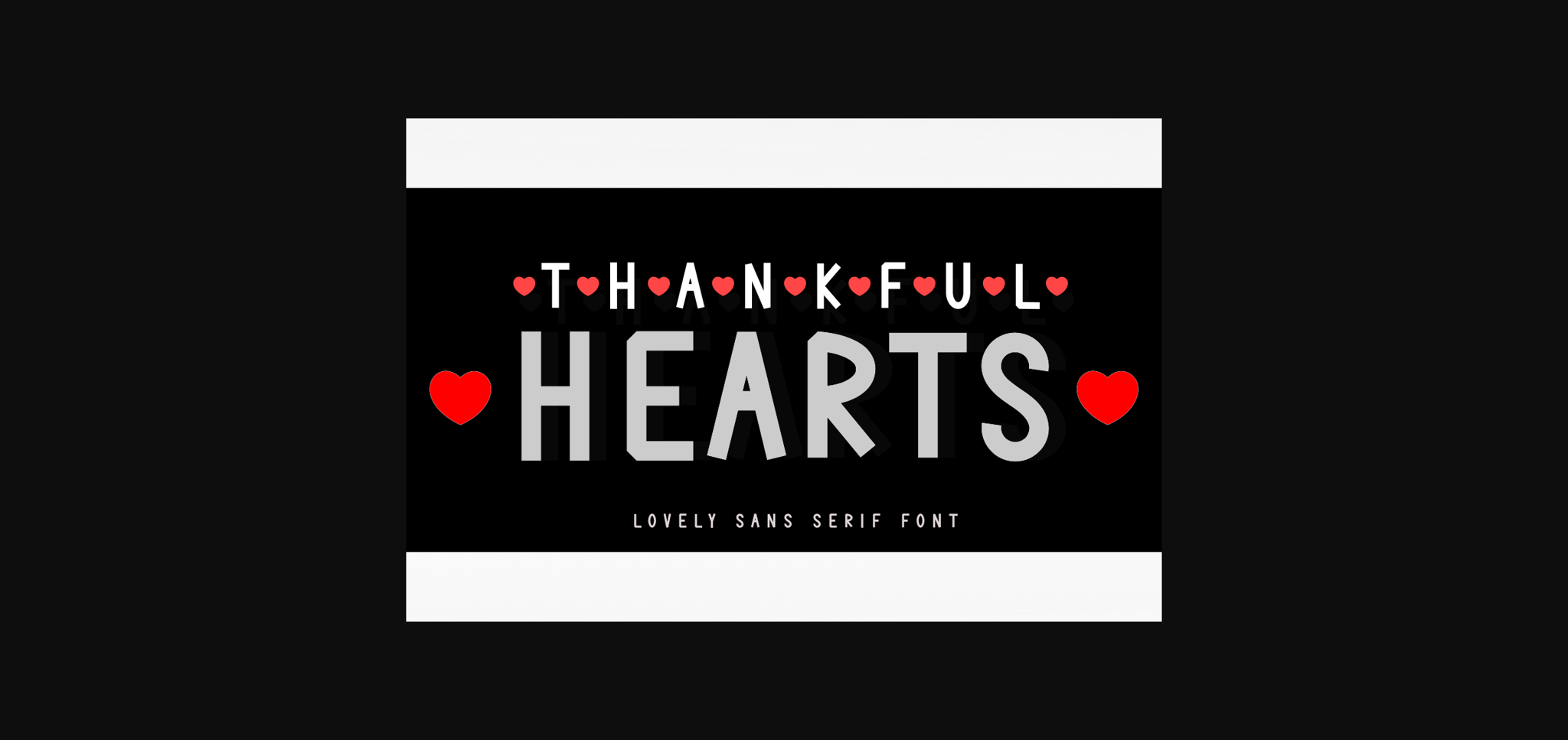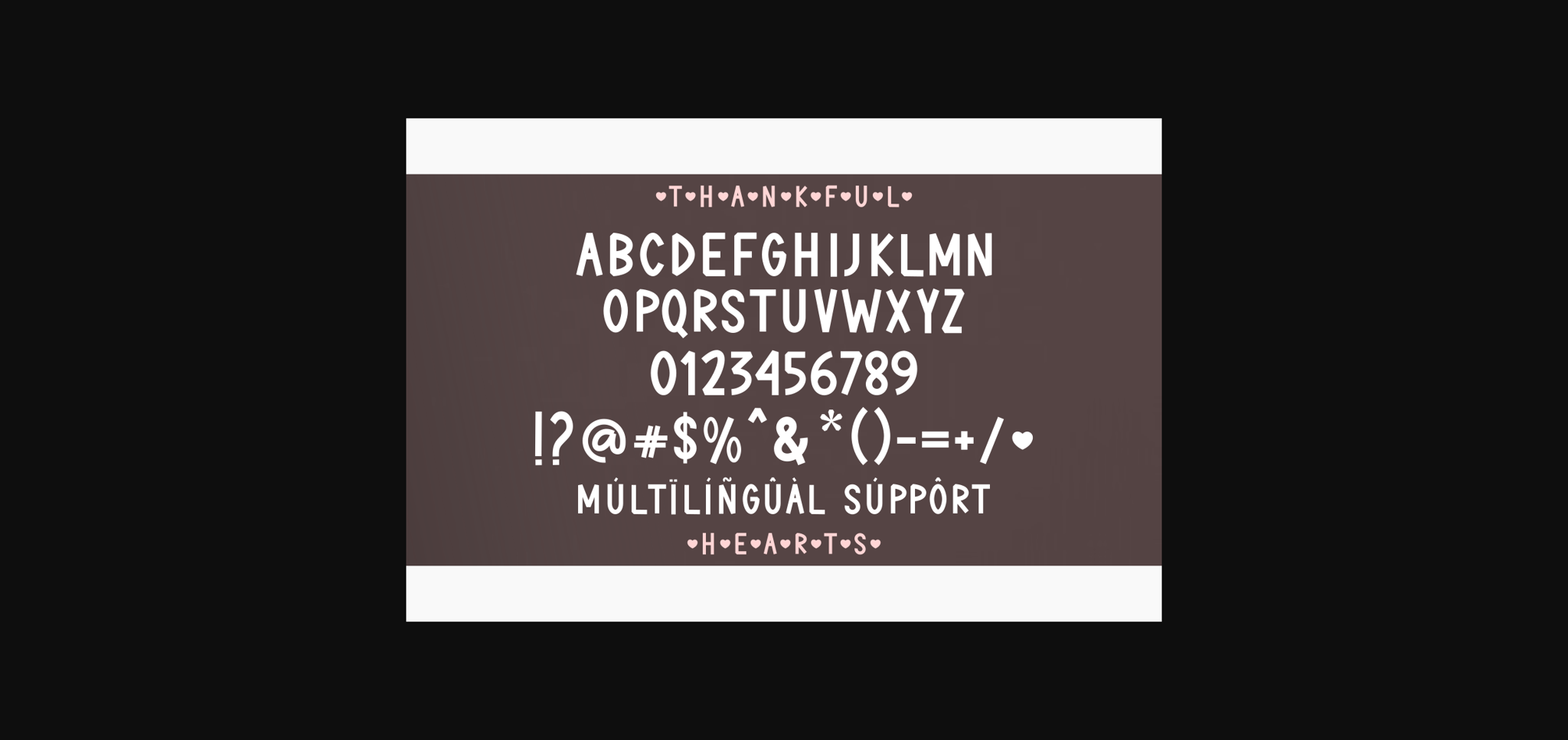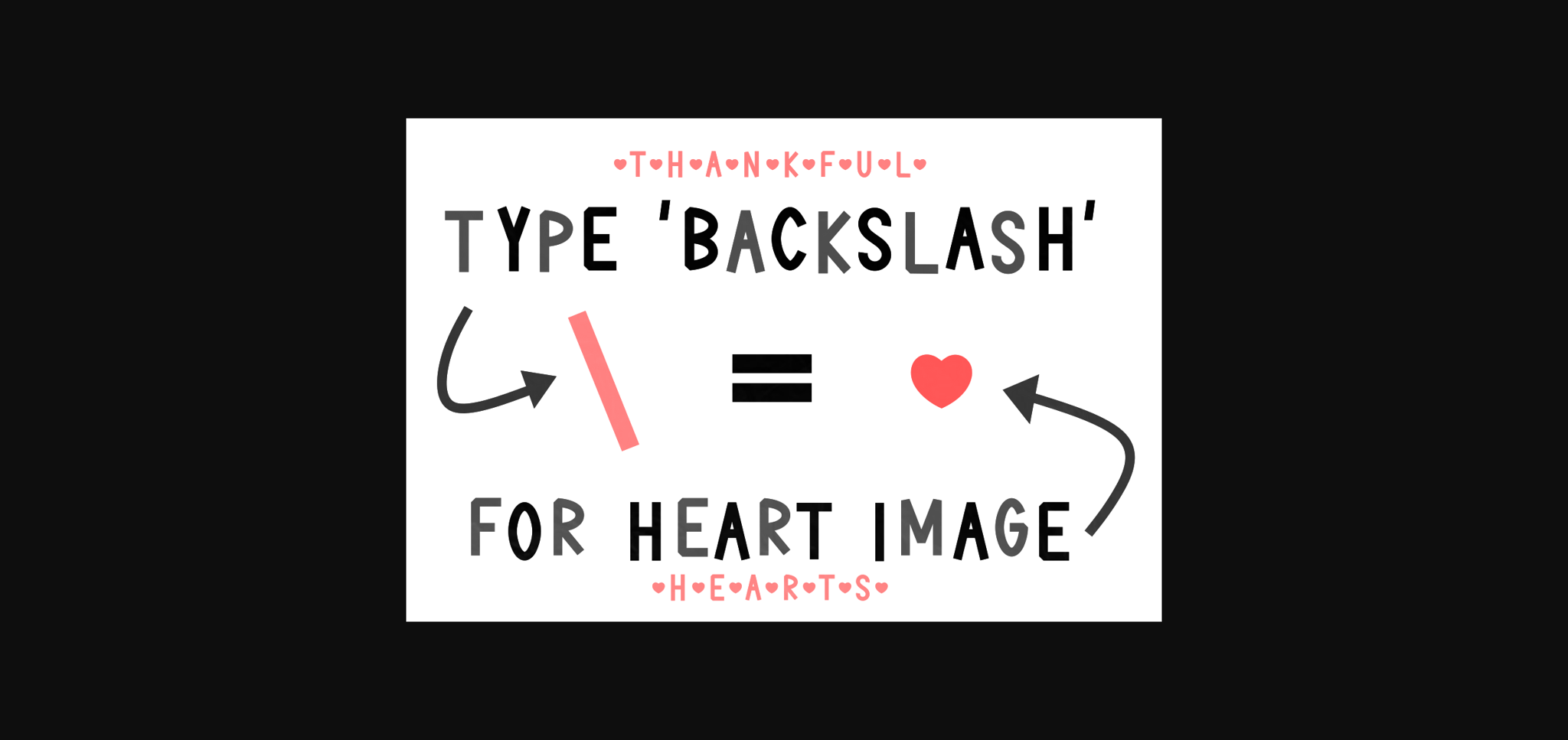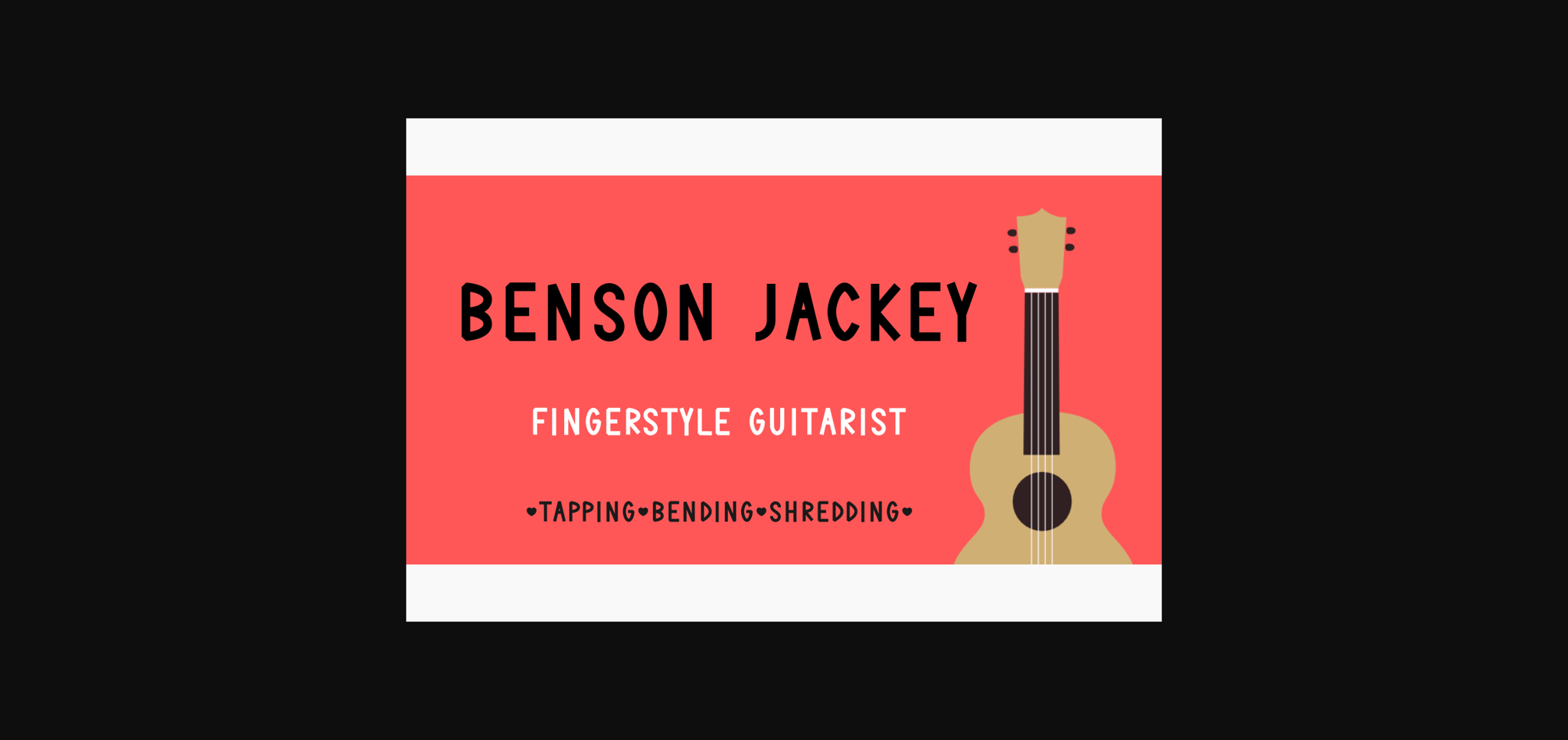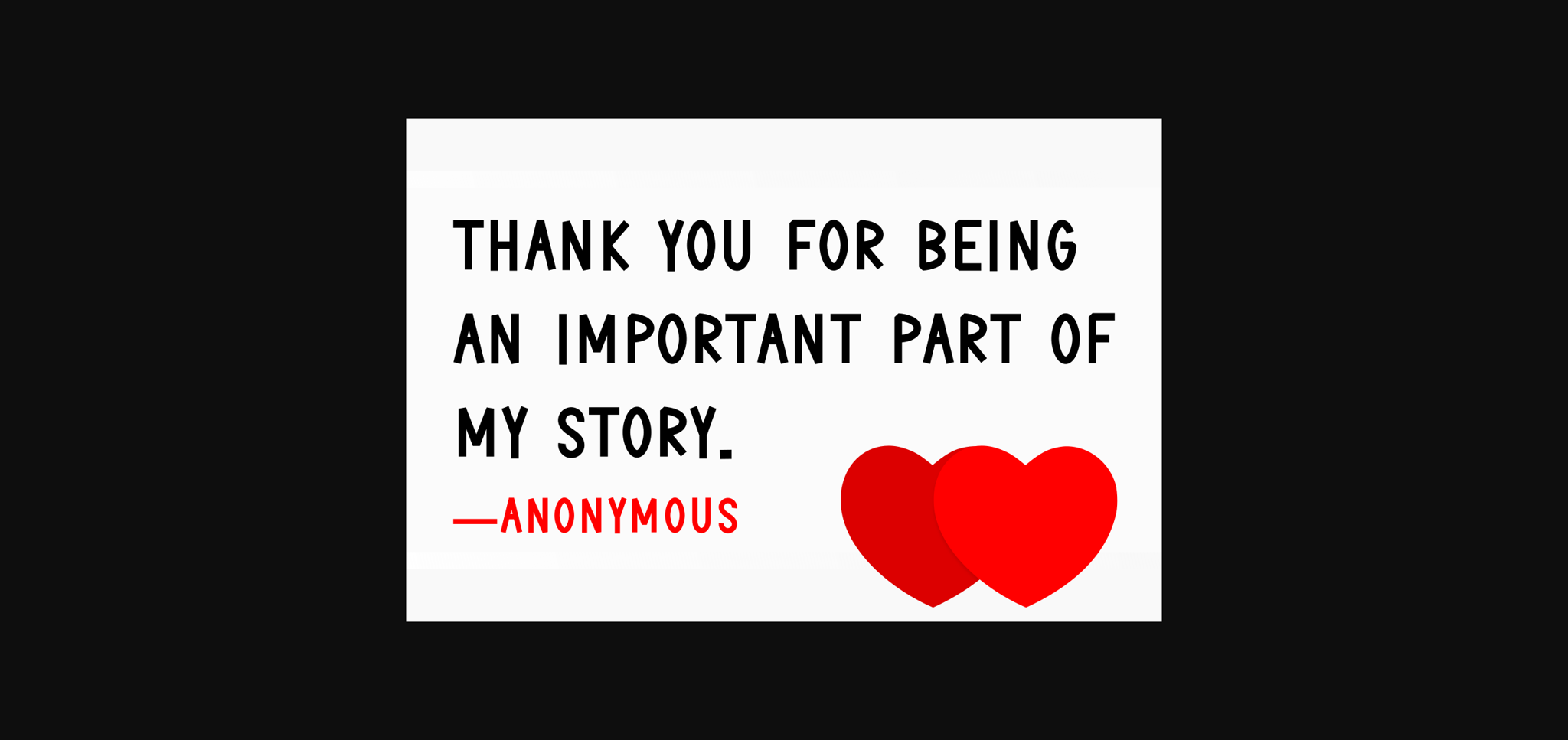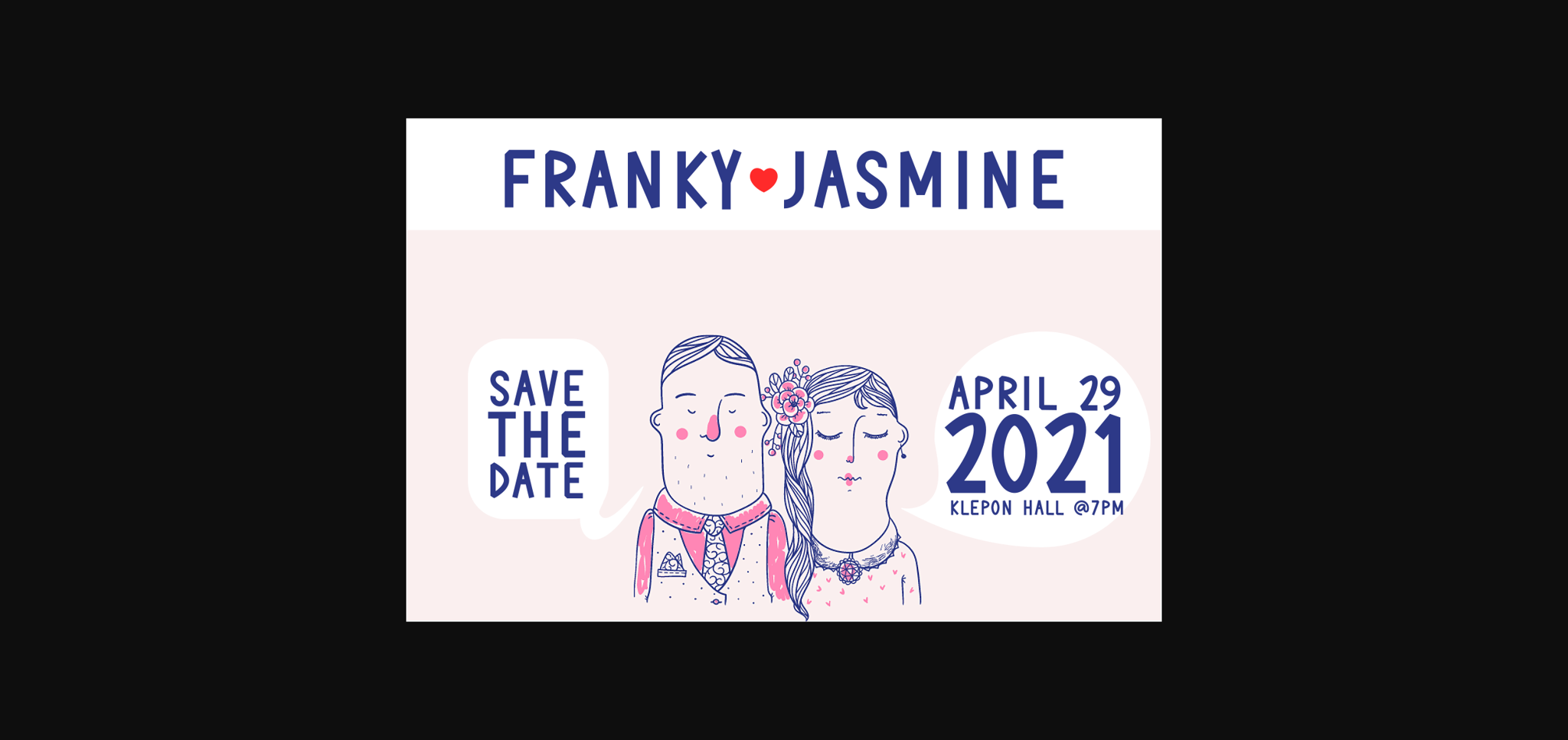
About Thankful Hearts Font
Thankful Hearts is a minimal and neat sans serif font. It can easily be matched to an incredibly large set of projects, so add it to your creative ideas and notice how it makes them stand out!